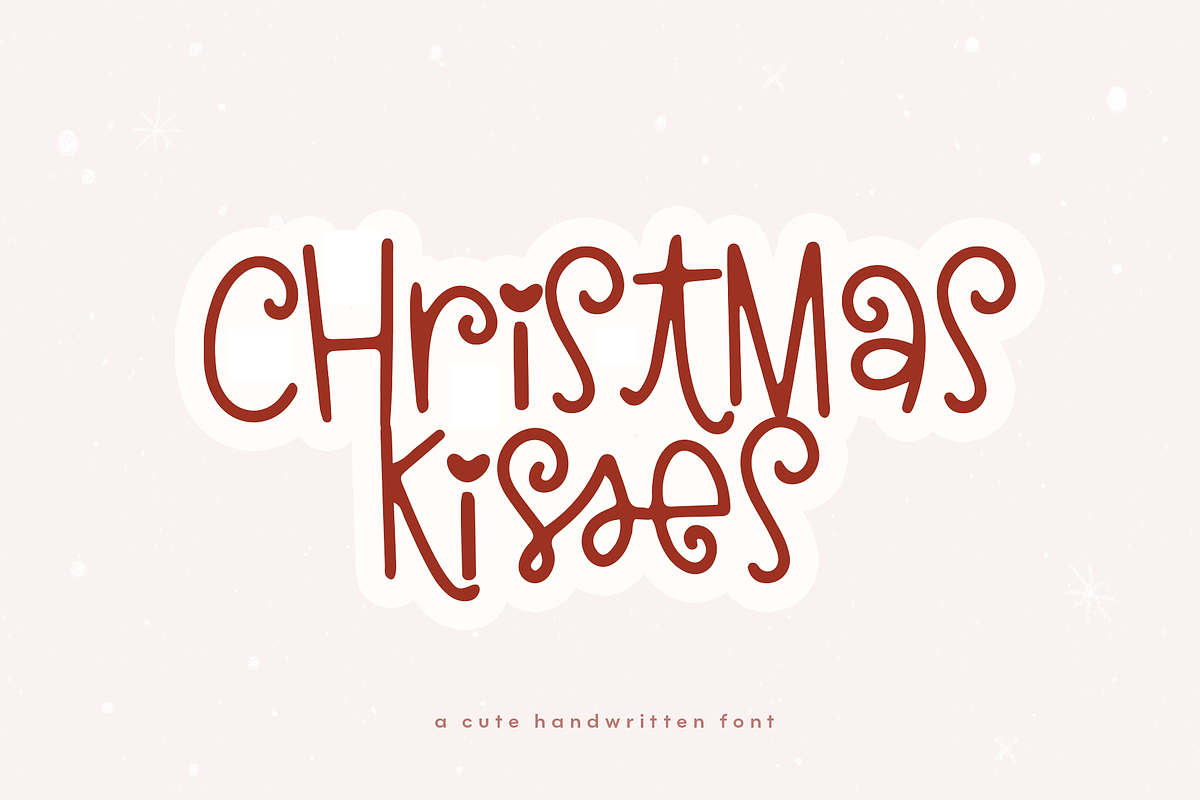
Christmas Kisses | Fun Holiday Font Free Download
Please note, to use this font for commercial purposes, you must purchase the full version. Christmas Kisses is a playful and festive holiday font that brings the joy and warmth of the season to your designs. With its whimsical letterforms and cheerful vibe, this font is perfect for Christmas cards, party invitations, holiday branding, and more. Whether you're designing a fun event flyer, a holiday greeting, or a seasonal logo, Christmas Kisses adds a joyful and creative touch to your work. Test it out and enjoy free download access for personal use. Experience the festive fun of Christmas Kisses | Fun Holiday Font Free Download before purchasing the commercial license. Add a holiday spirit to your designs with Christmas Kisses.